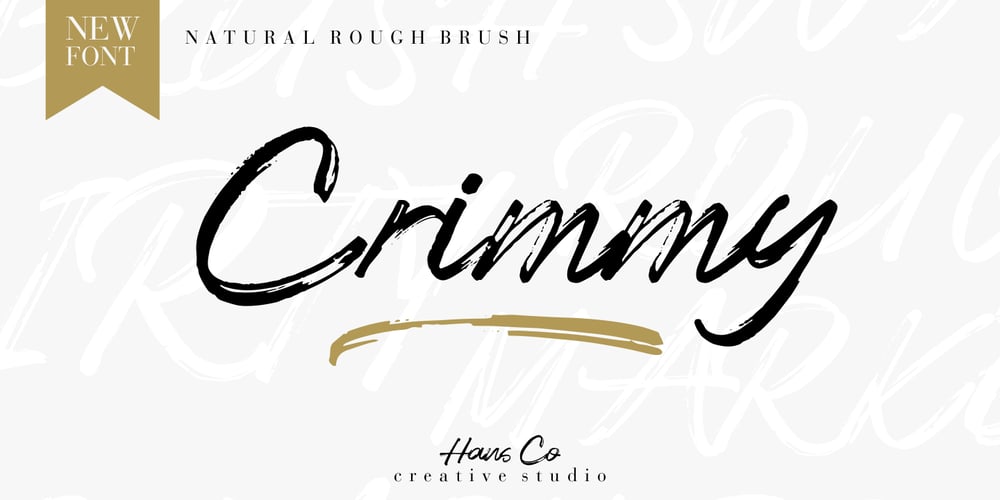
Crimmy Font Family was designed by Burhan Afif and published by HansCo. Crimmy contains 1 styles and family package options. Crimmy is a modern and clean brush with natural a handwritten font. This texture is very detailed. You can see the swash brushes as alternate characters in this font. Crimmy is suitable for logos, shirts, fashion, blogs, websites, product branding, posters, flyers, any print template or for text overlay to any background image. How to use alternate: if you use Adobe / Corel Draw you just block one of the letters / numbers (for swash) and an arrow will appear under the letter, and you can replace it with alternative characters. Alternative character ready for ” f , g , j , y and numeral 0 – 9 “